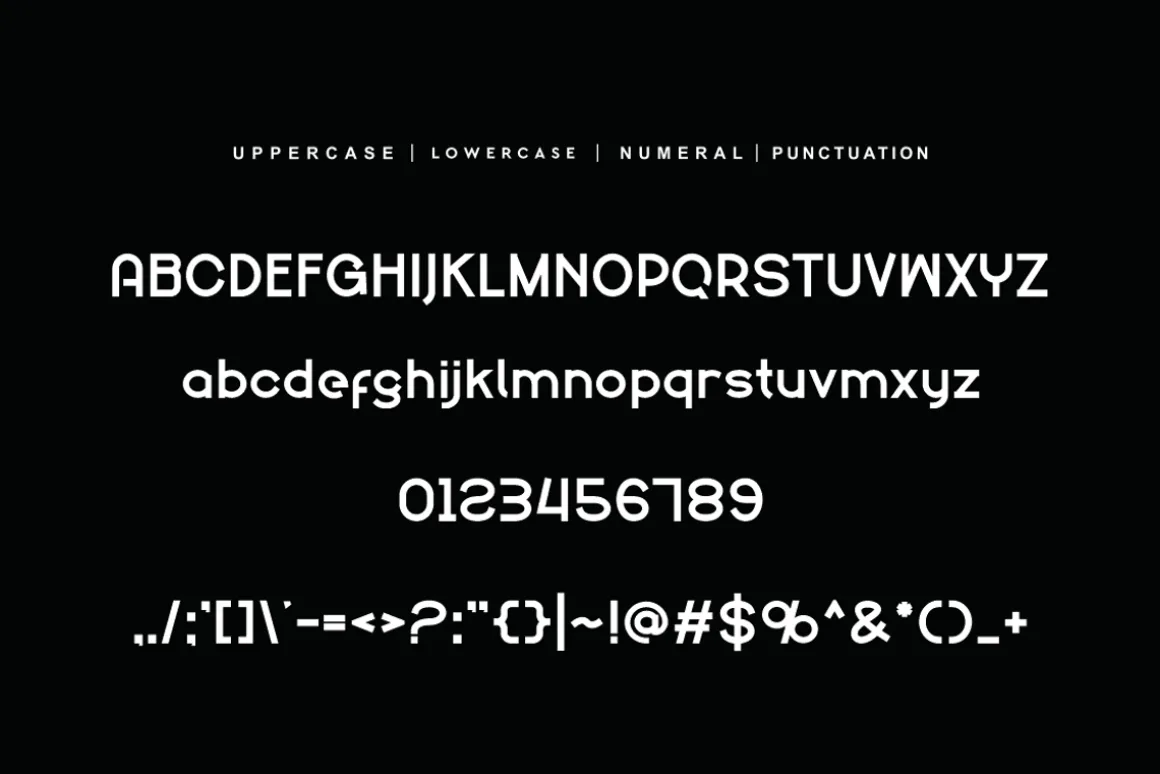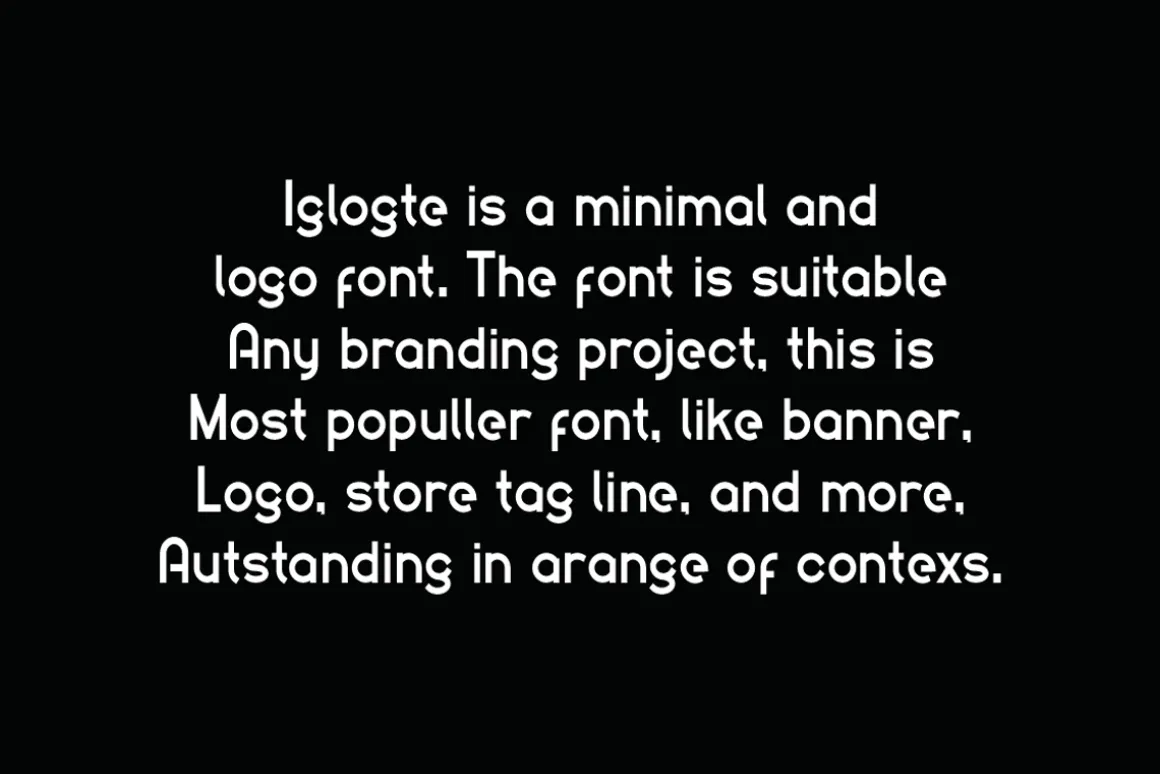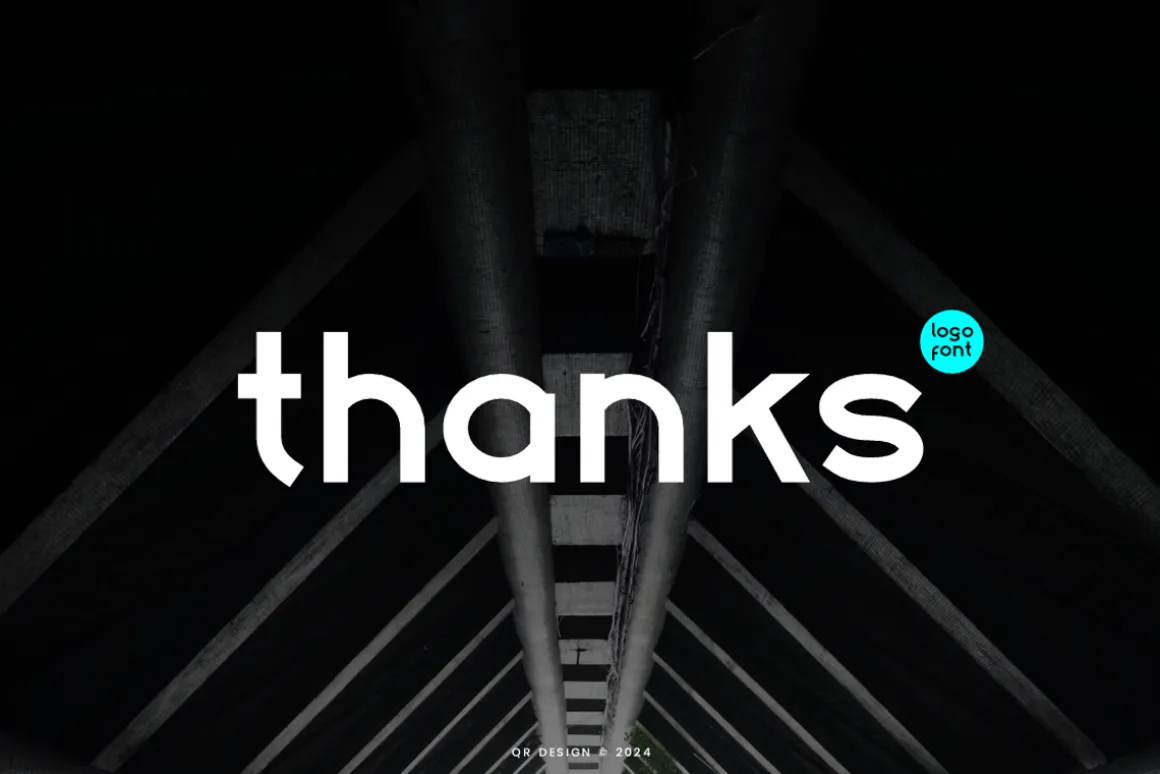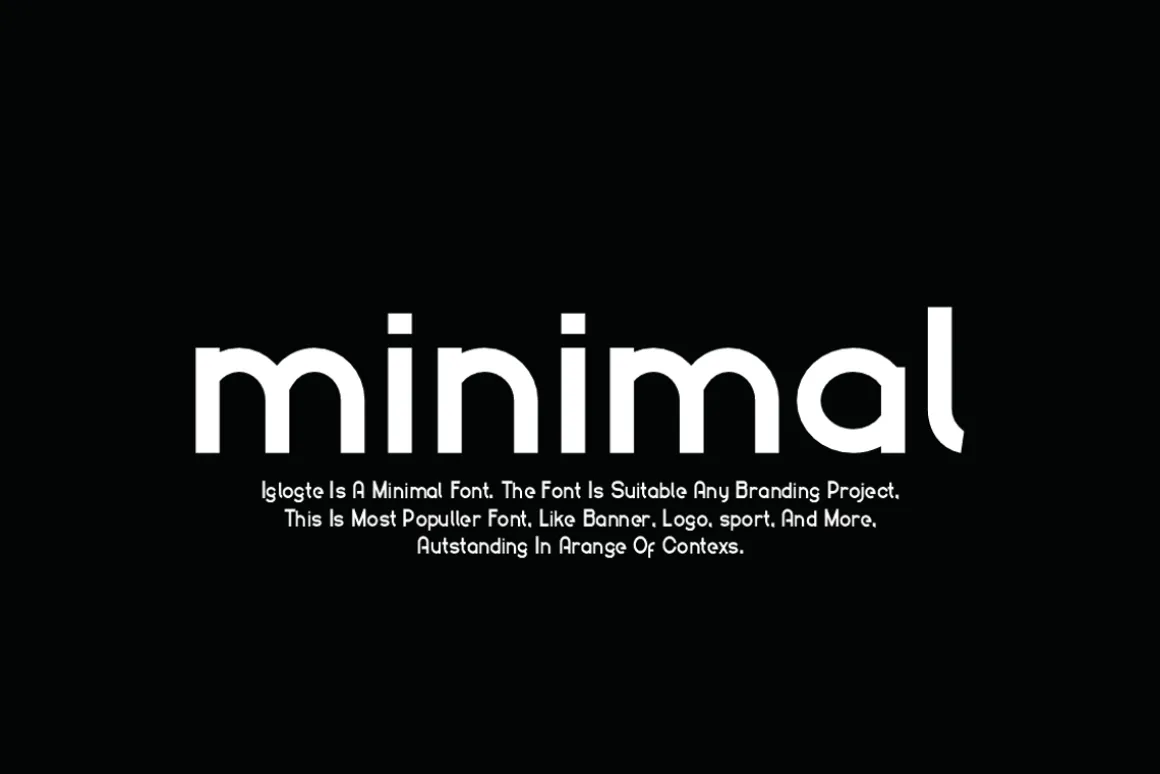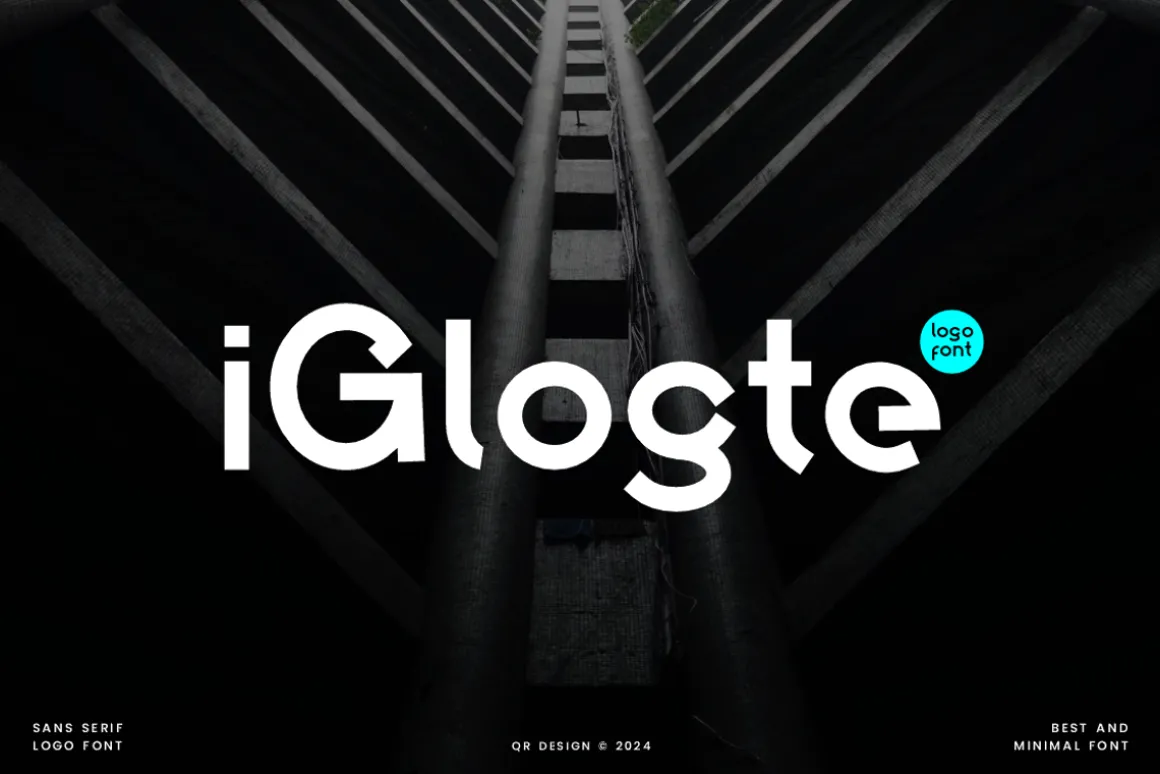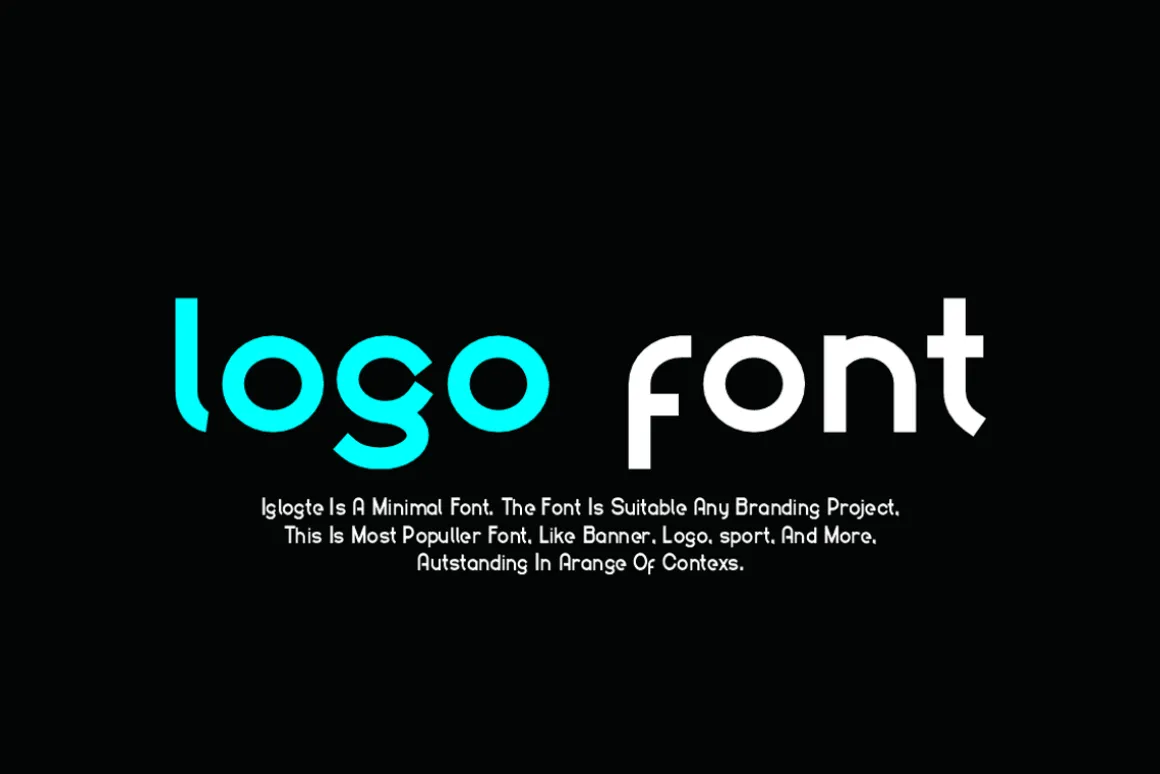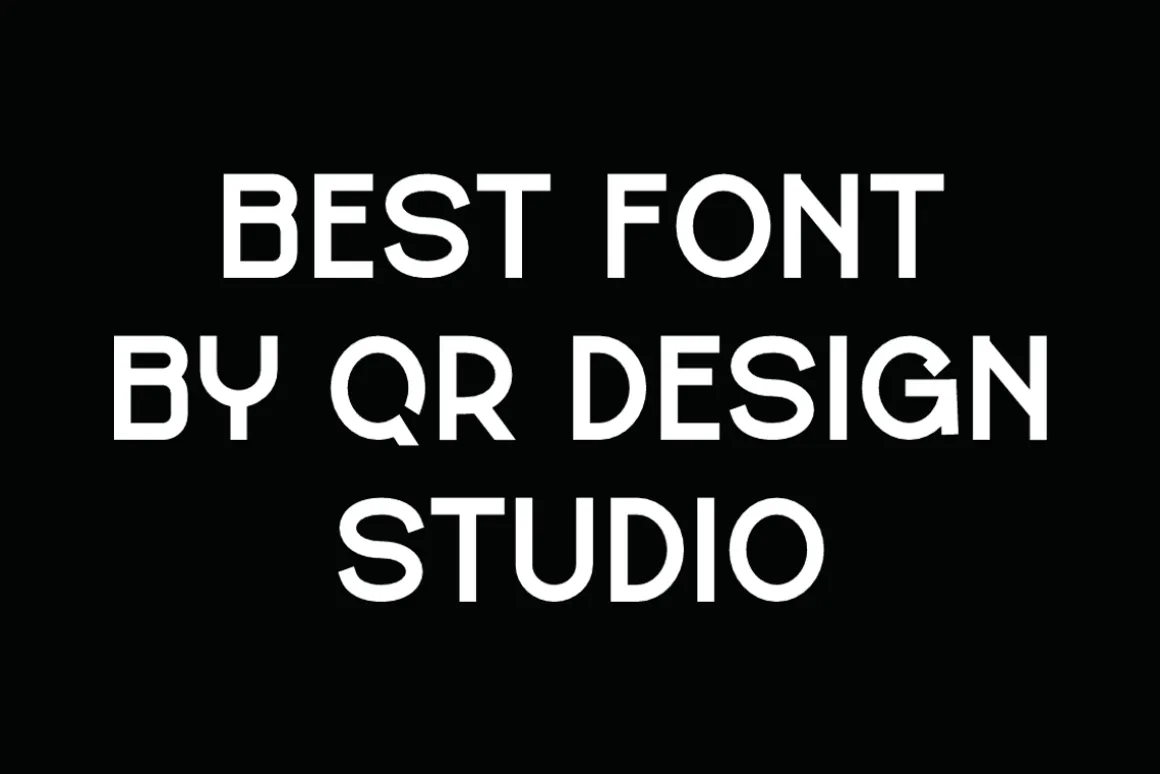
Iglogte Font is a minimal and authentic display font.The font is suitable for any branding project like poster, logo, sport, and many more.Outstanding in a wide range of contexts.